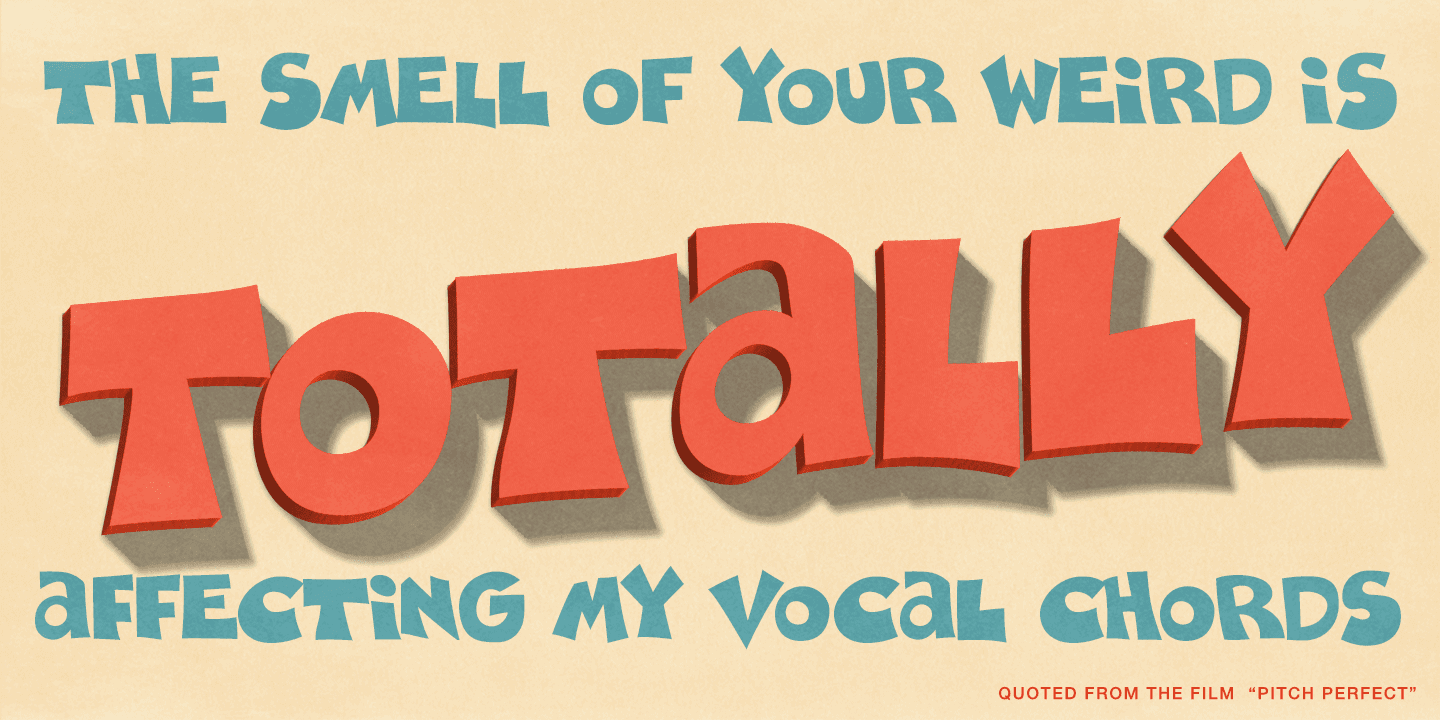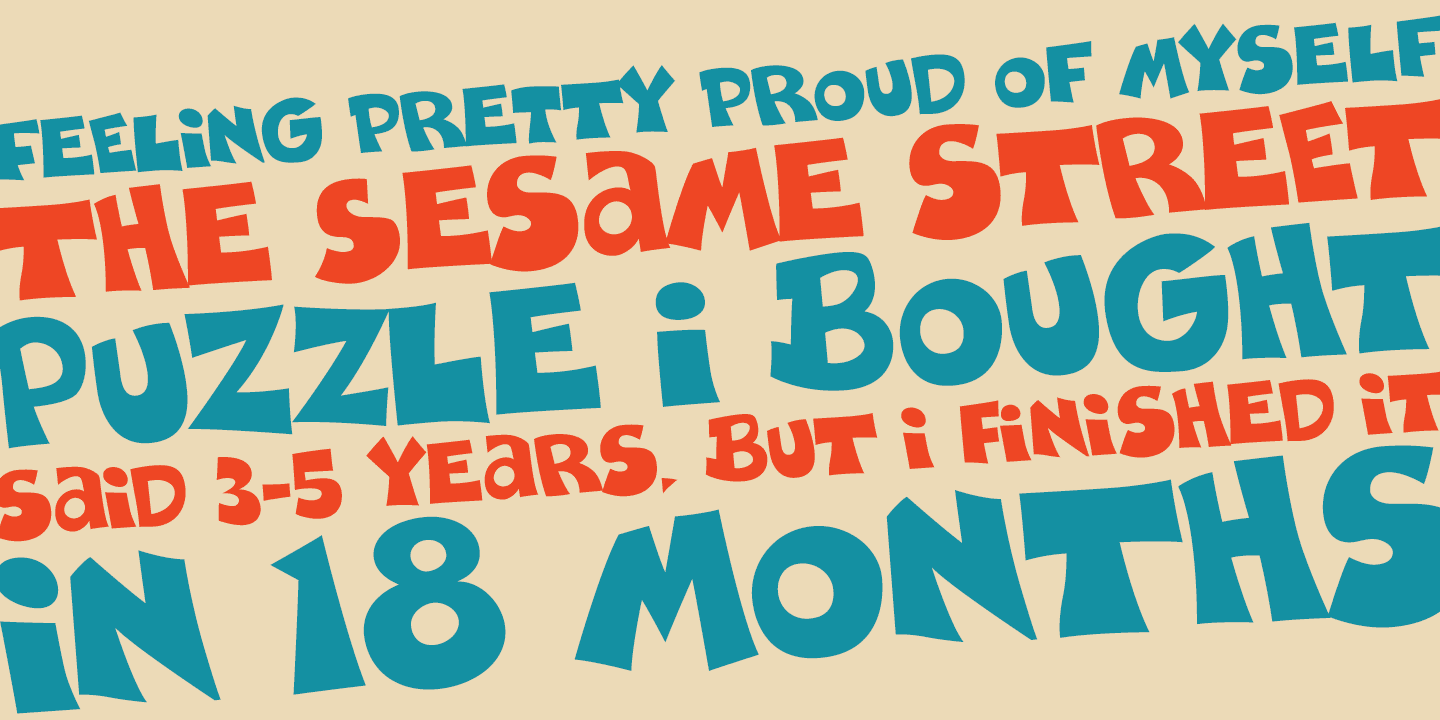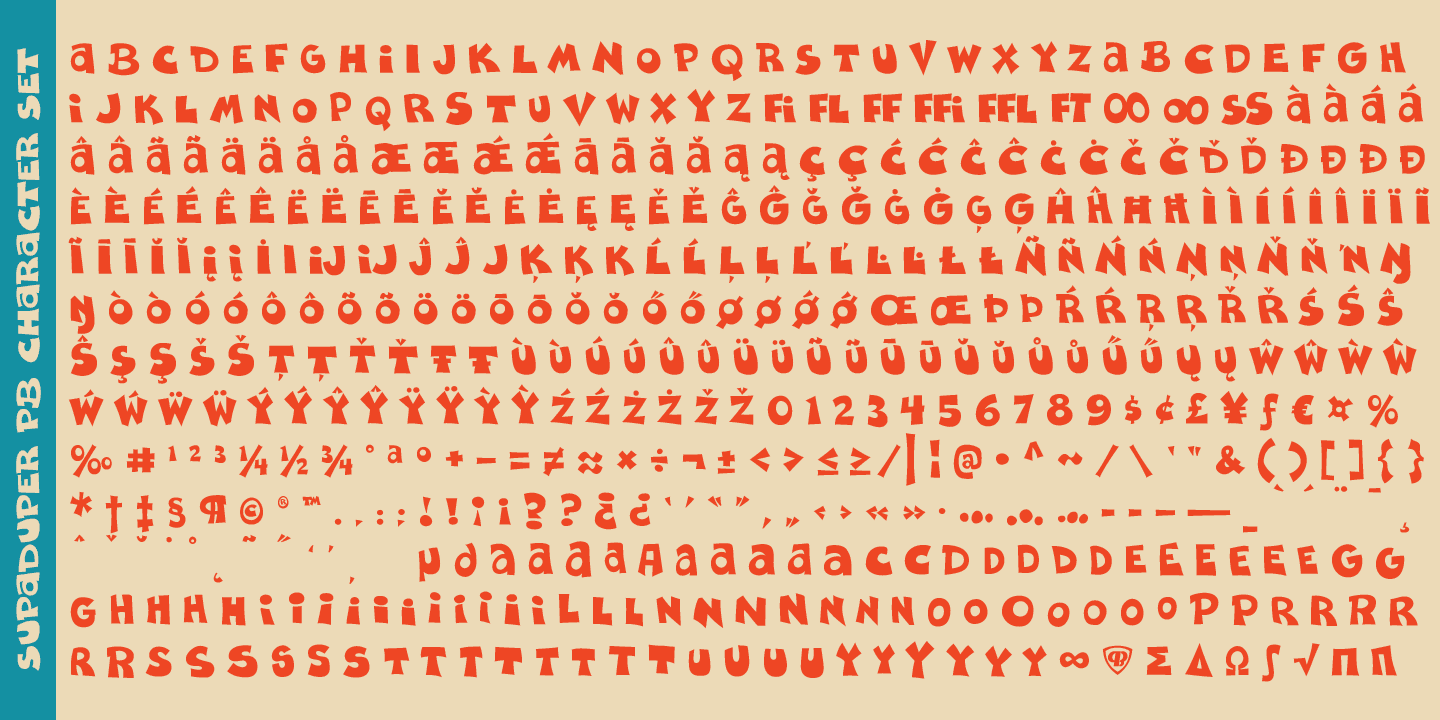
About Supaduper PB
Supaduper PB is a font inspired by some wonderfully funky hand-lettered greeting cards from the 1980\’s. The delightfully awkward and animated playfulness of this lettering style was maintained throughout the fleshing out from the original specimens -…